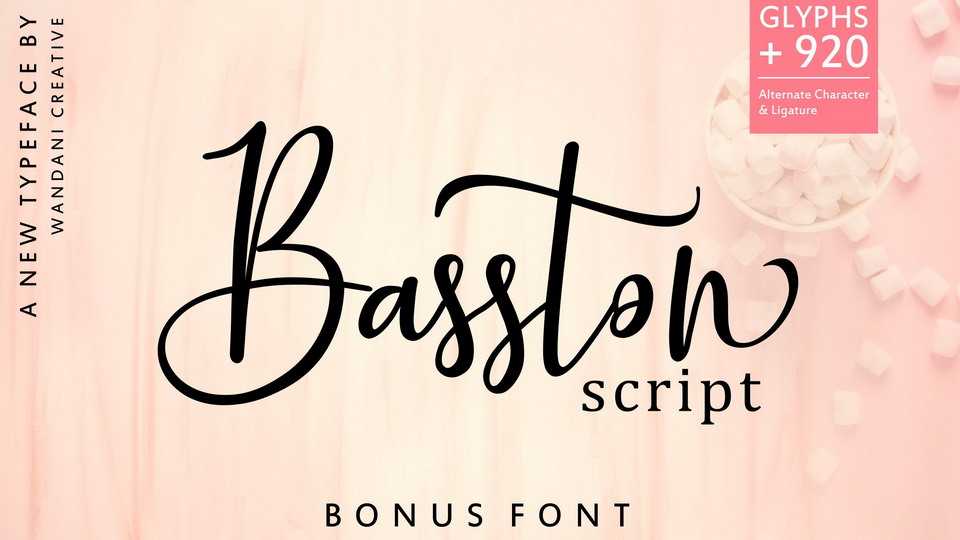
Download Basston Script font, a beautiful handwritten typeface, both elegant and charming in look and design. It comes with over 920 alternate characters and ligatures, so you can create the most stellar looking calligraphy designs simply and easily. It is perfect for branding, wedding, merchandise and more.
Designer: Wandani Creative